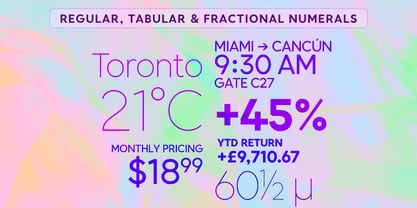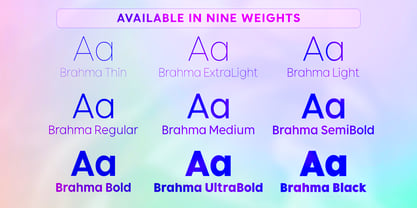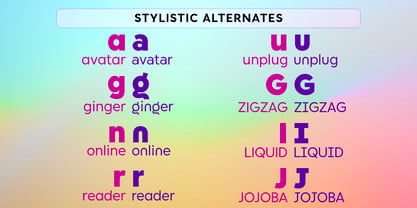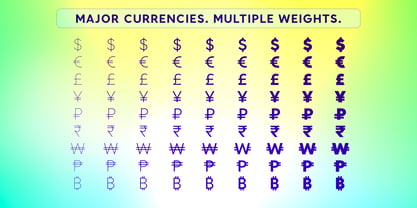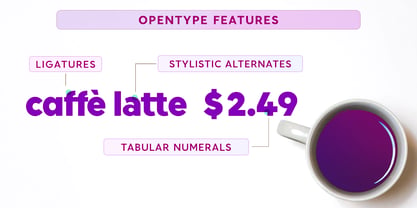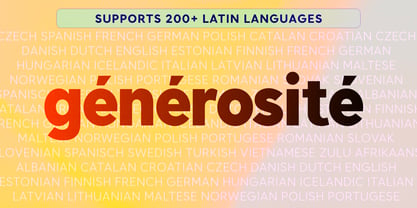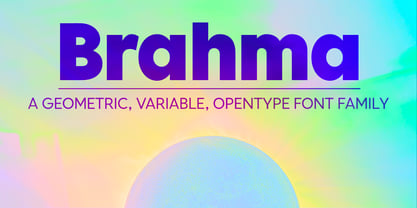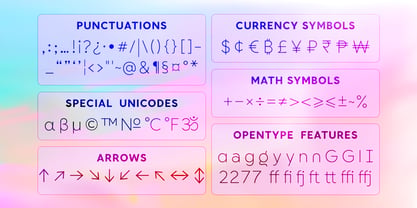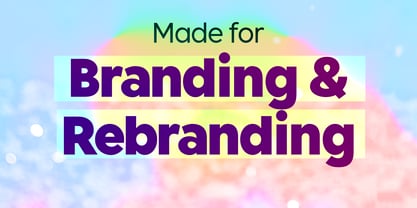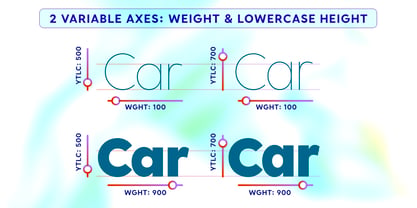
Brahma
La familia tipográfica Brahma fue diseñada por Dar Meyer y publicada por Tall Chai. Brahma contiene 9 estilos y opciones de paquete familiar.
Brahma V2 is here. The new version has been three years in the making. It has multiple new updates and improvements based on user feedback. The focus for this version has been improved readability while maintaining the unique, modern identity of Brahma type family that has received so much love since V1 was launched in Dec 2020.
Brahma is a modern geometric sans-serif font family with weights ranging from Thin (100) to Black (900).
Features:
• Available in 9 weights
• Over 550 glyphs supporting extended Latin
• Ideal for display texts: Titles, Logos and Headlines etc.
• Perfect for branding and rebranding
• Supports OpenTypes features like Ligatures and Stylistic Alternates
• Tabular Numerals included
• Symbols for 10 major currencies including Bitcoin provided in all weights
Description:
The name comes from Brahmā who is known as the god of creation. And manifesting the same spirit, the Brahma font family focuses on modern creativity.
Every character effortlessly integrates with current design standards and interfaces. The fonts are professional yet have a hint of informal personality in them. This makes Brahma perfect for use in modern apps and websites.
Brahma is built for the designing and marketing squads. It has a trendy geometric characteristic which is ideal for any branding and rebranding.
Brahma has lot of OpenType features (like ligatures and tabular numerals) and the Extended Latin character set supports over a hundred languages.